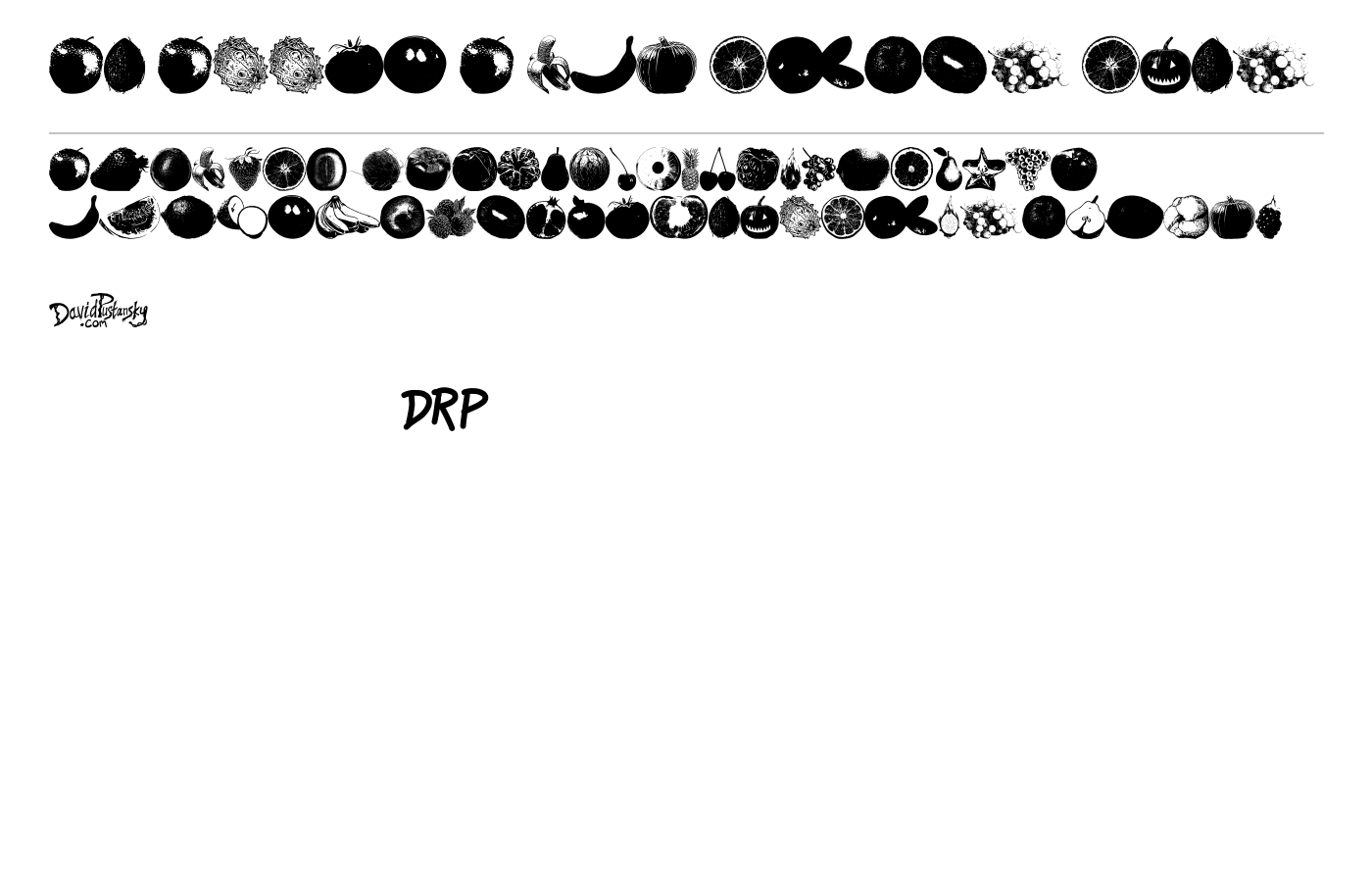
An Apple A Day Fruit Font is a fun and creative decorative typeface made entirely from detailed fruit illustrations. This unique design brings a playful and natural vibe, making it perfect for projects related to food, health, and kids’ themes where a fresh and organic feel is desired. Its highly visual style works best in logos, packaging, and headlines, adding a charming and eye-catching touch.
An Apple A Day Fruit Font
About An Apple A Day Fruit Font
| Font family | An Apple A Day Fruit Font |